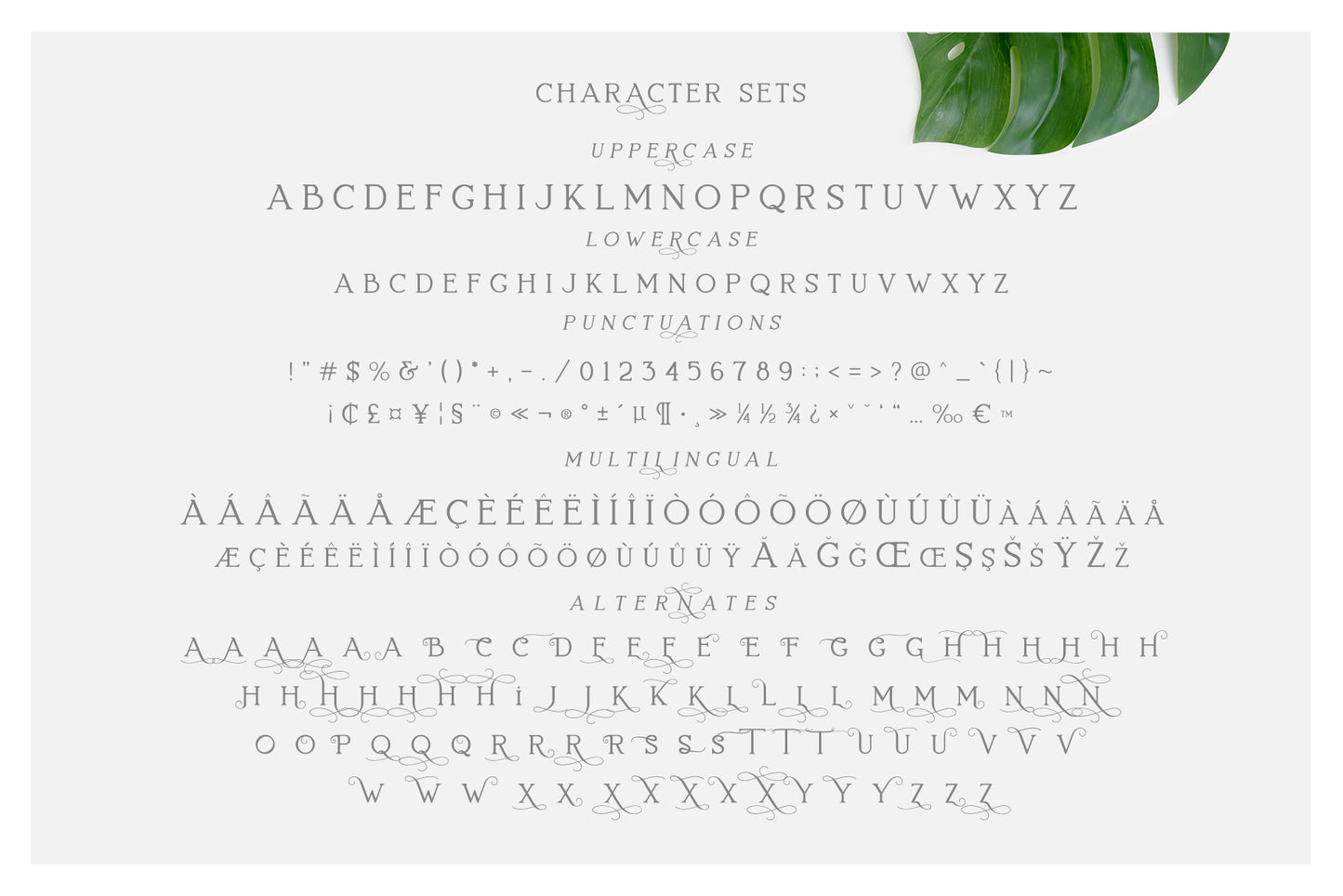
Free Lovelyn Font
Download and enjoy this free lovelyn font. Cool typeface to showcase your designs in a modern way. Pixelify has created this amazing and beautiful free font. Showcase your designs like a graphic design pro by adding a new touch with this fancy font.